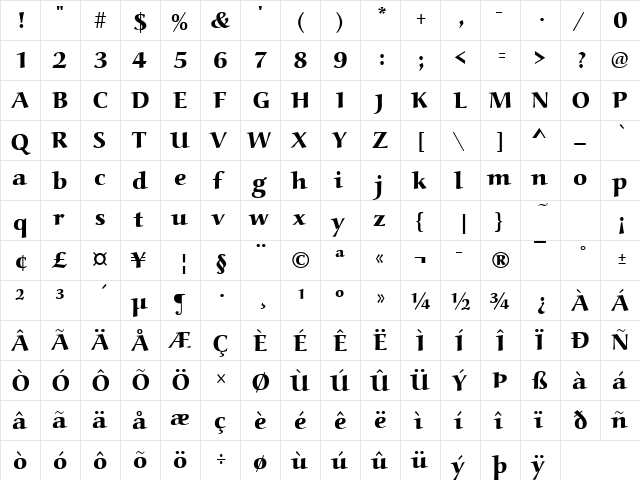
AucoinExtBol Regular
Design Context for AucoinExtBol Typeface
AucoinExtBol takes a measured approach to typography — its balanced proportions and neutral character make it a reliable workhorse for both digital and print work.